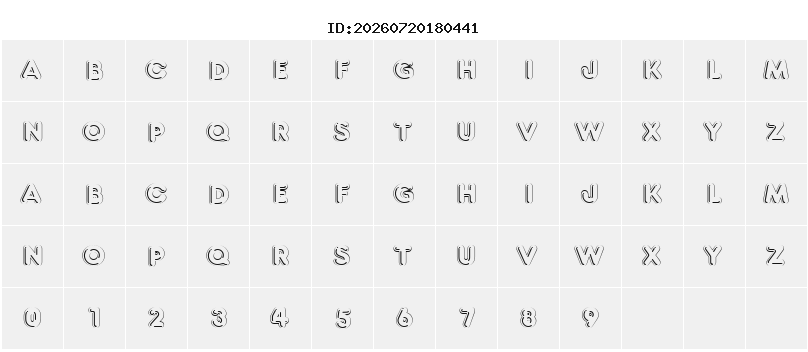
About FrankfurterChrD.ttf
FrankfurterChrD.ttf is a modern, elegant sans-serif font designed for ultimate readability and visual harmony. Perfect for branding, headlines, web design, and print materials.